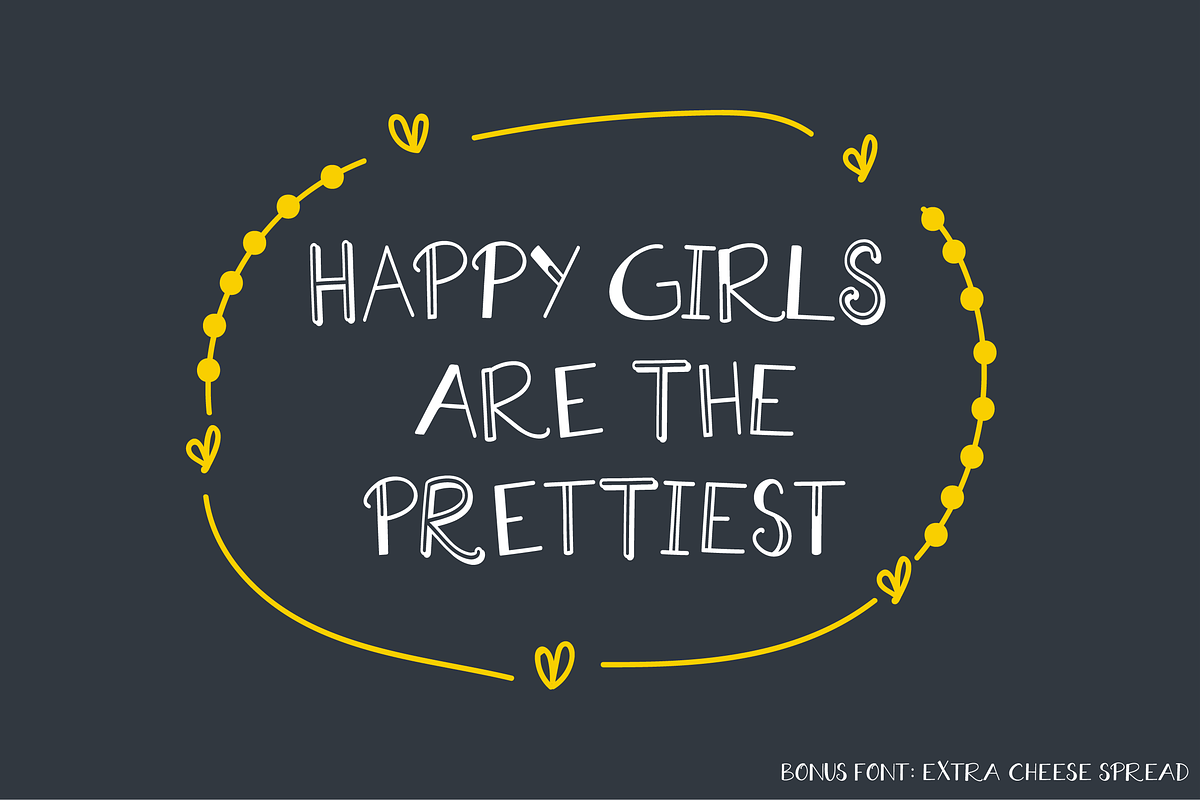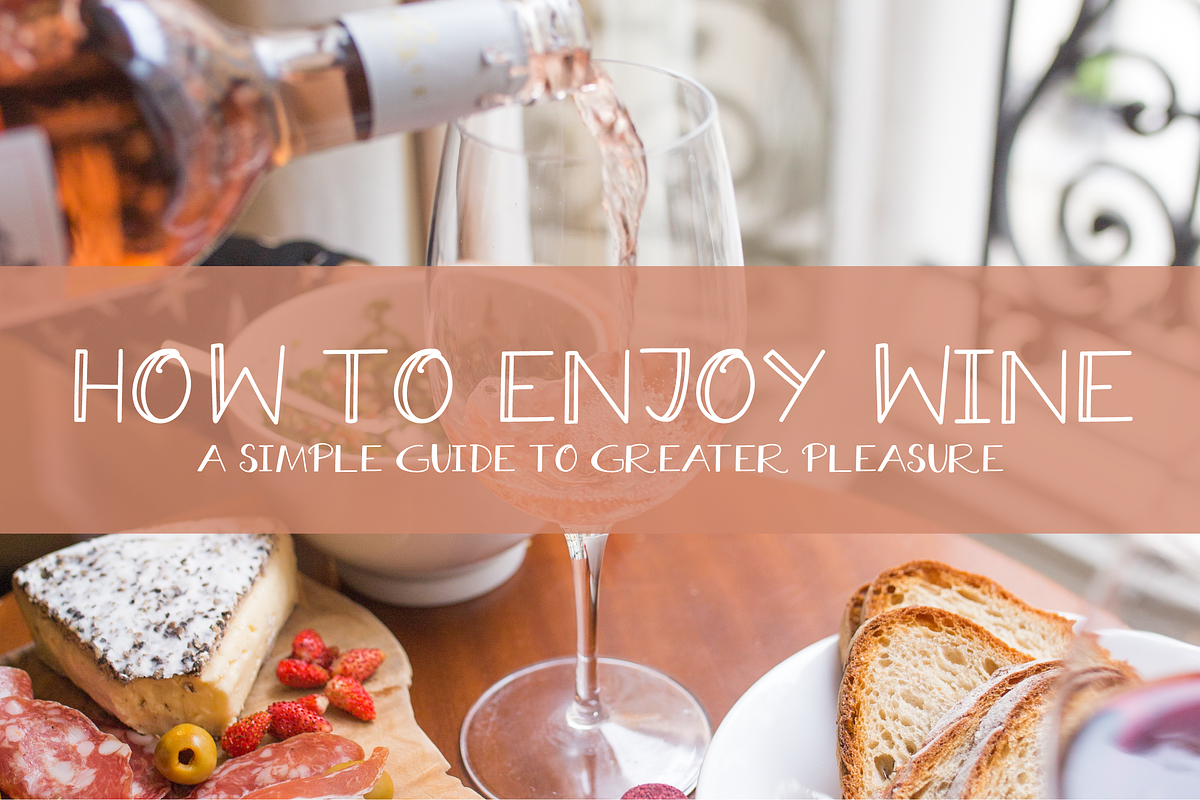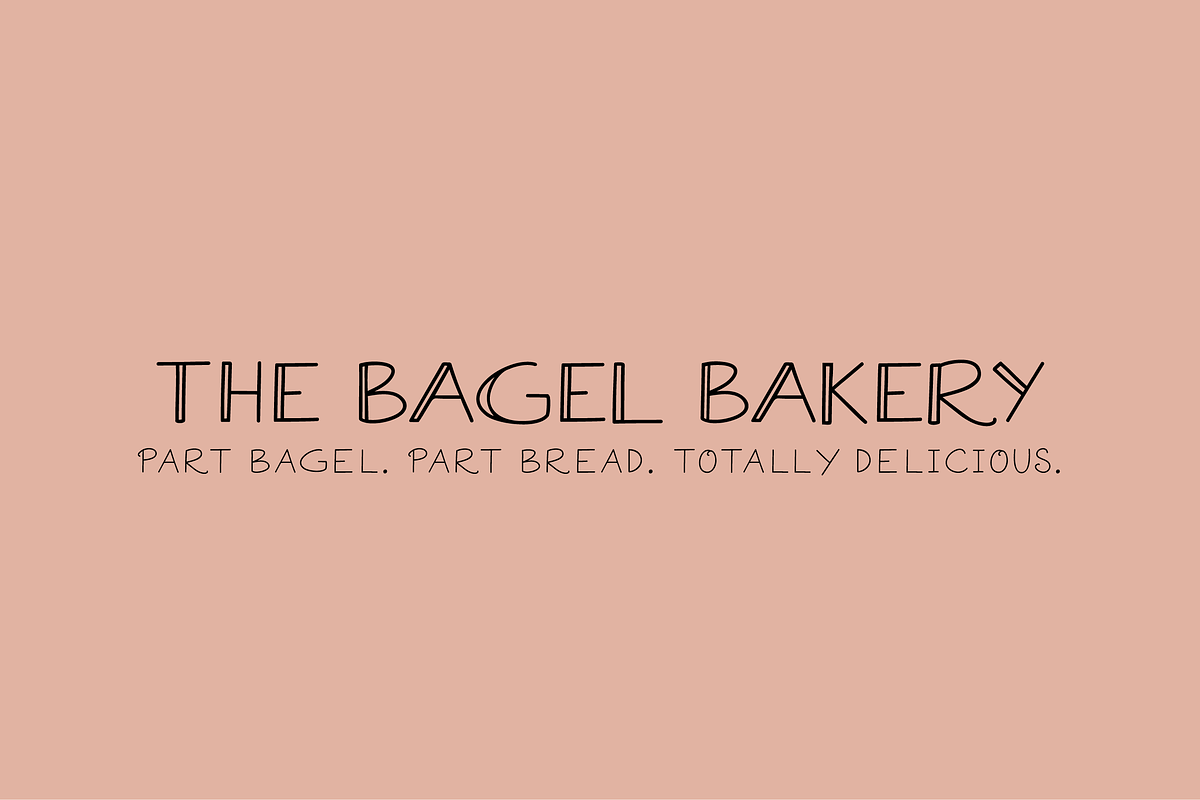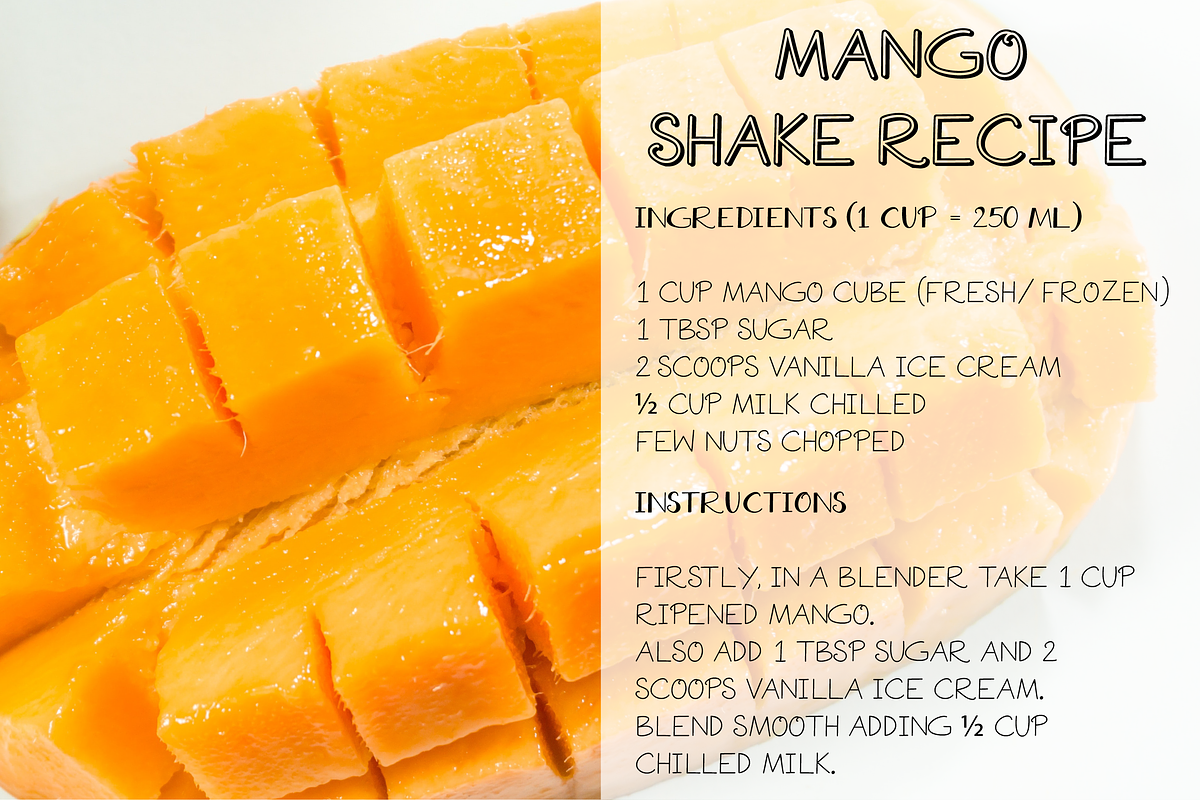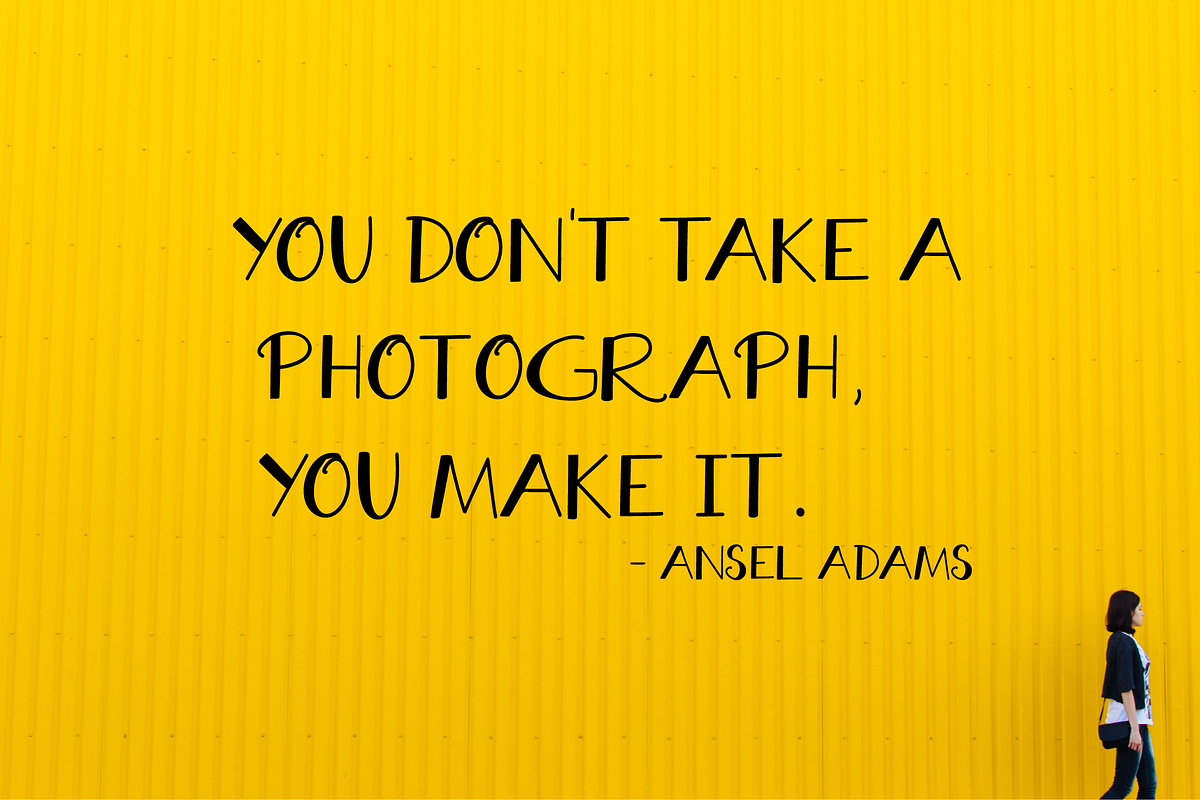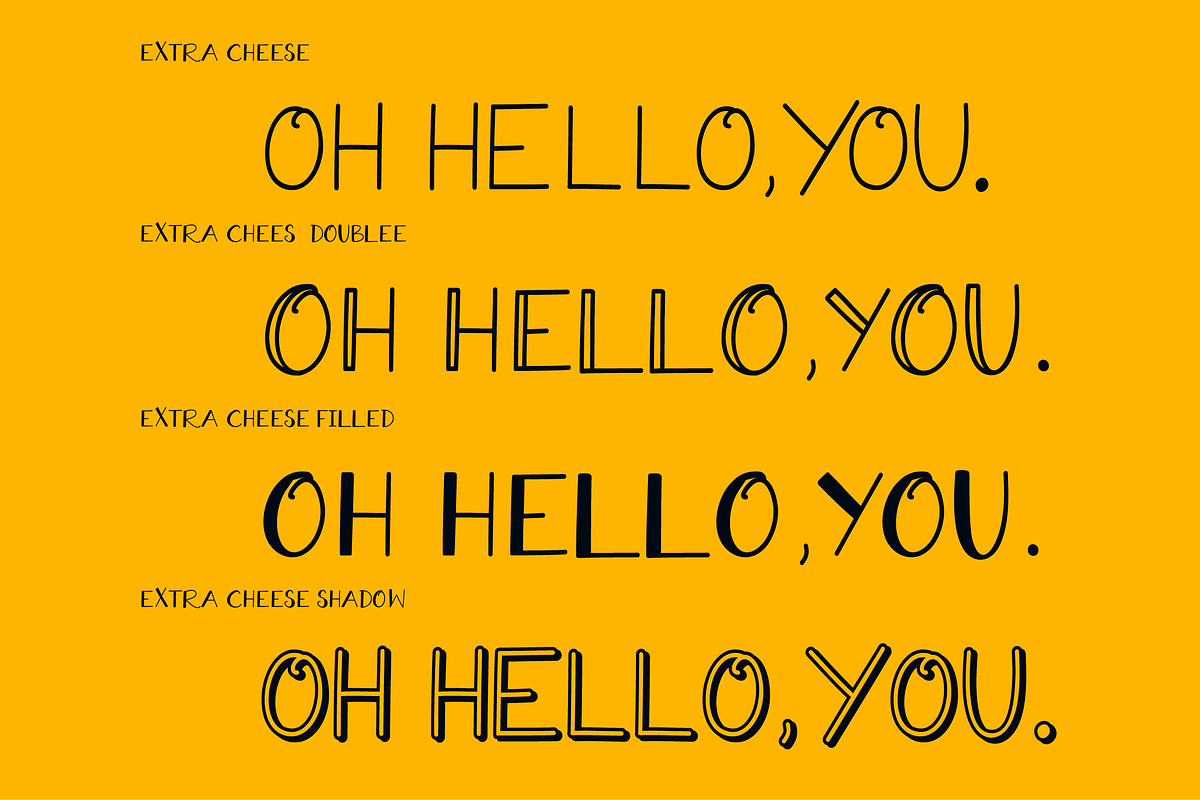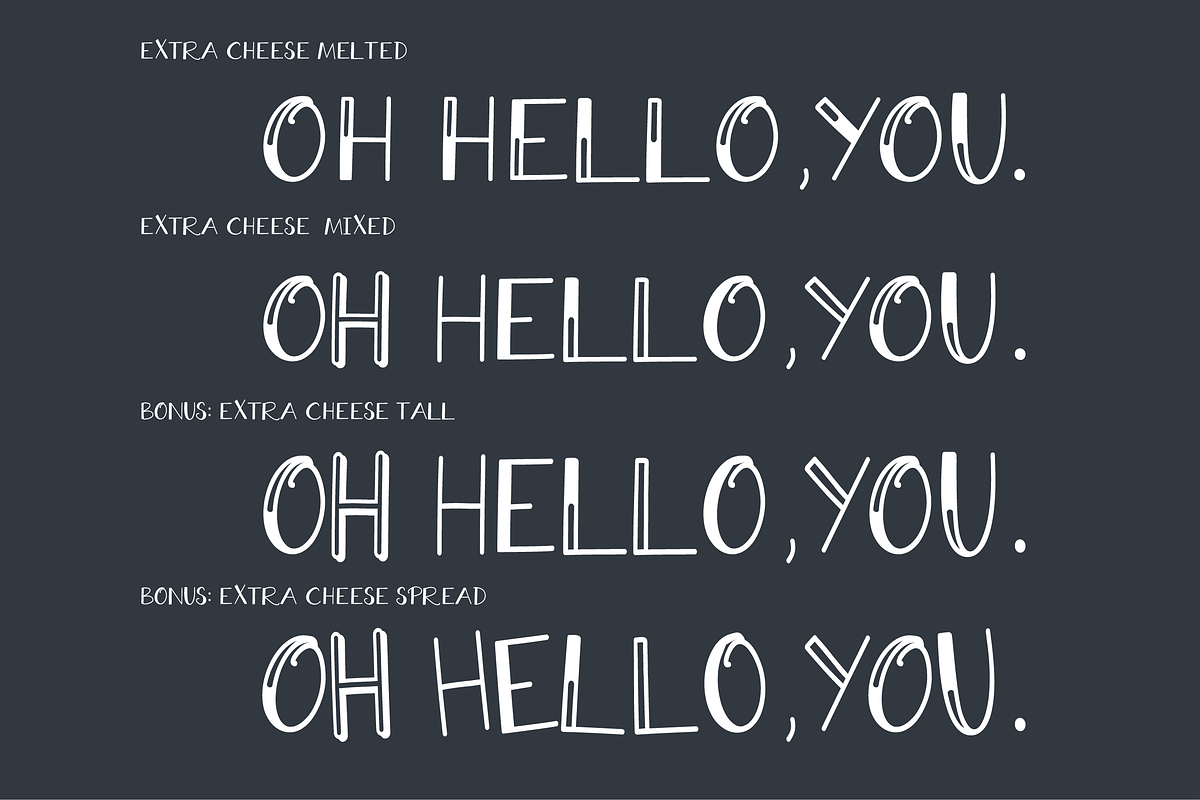
A fun mixed font set, Extra cheese is an all caps font that comes in 5 different styles. Each can be used as a stand alone font or together to create a fun and playful design. With so many different styles, it's perfect for magazine layouts, invitations, photo overlays, social media/blog posts and more!
Extra Cheese - A sophisticated sans serif monoline font for that simple and clean look. It goes with everything!
Extra Cheese Filled - A filled version of the above font to give your designs a dash of bold!
Extra Cheese Mixed - All the above fonts combined in a single font file for easy access! Find all the letters as alternates.
Extra Cheese Tall: A taller version of Extra Cheese Mixed for when you need the font to be, well.. taller.
Extra Cheese Spread: A spread out version that is all over the place, dancing! Use it to give your designs a cool, fun vibe.
- Extra Cheese Double - Double lines, double the playfulness!
- Extra Cheese Shadow - A font with it's own shadow!
- Extra Cheese Melted - An adorable half filled font to make your text stand out!
- All fonts include numbers, punctuations as well as international language support.